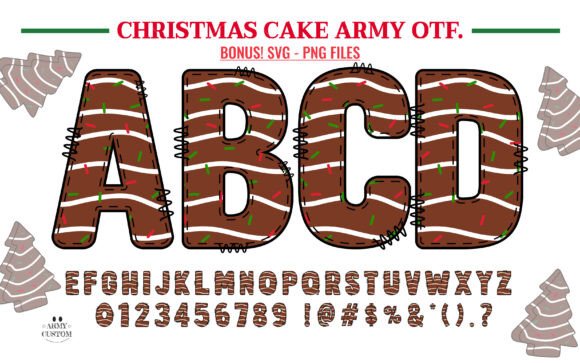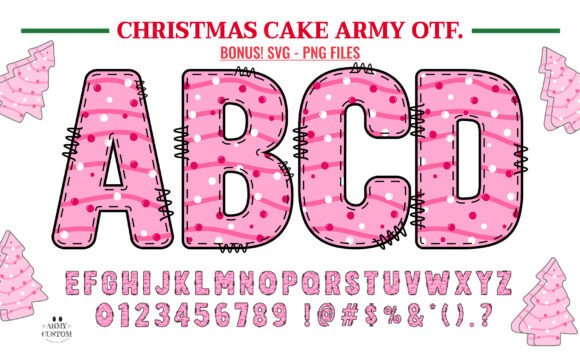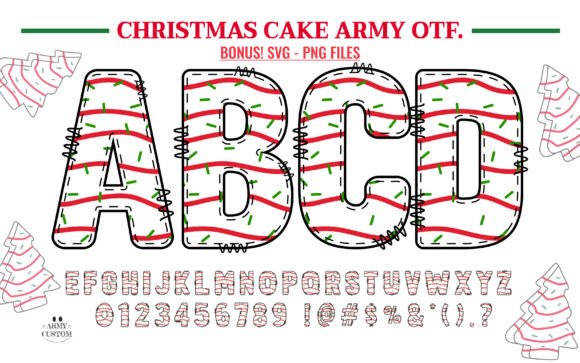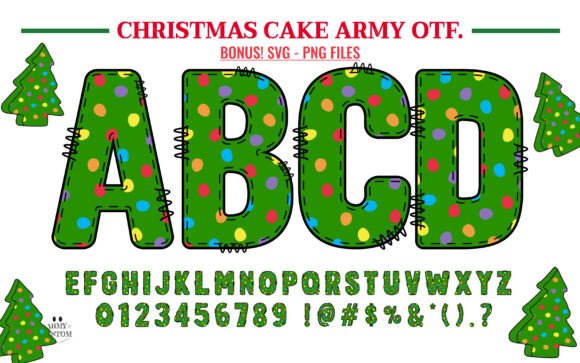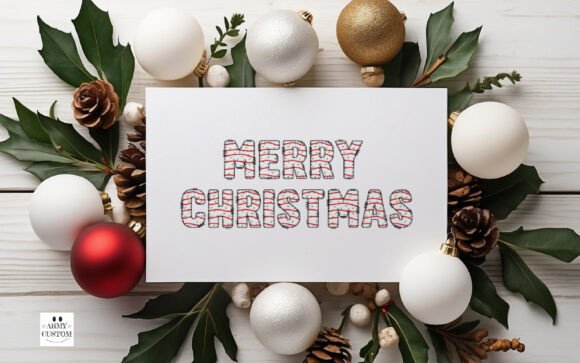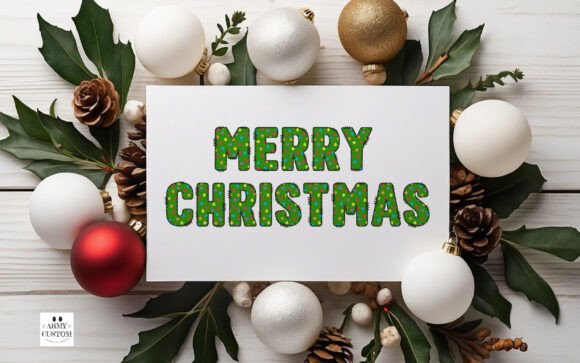
Deck the Halls with Typography: Introducing the Christmas Cake Font Bundle
It’s the most wonderful time of the year, and you’re in the midst of brainstorming the perfect design for your holiday projects. The twinkling lights, the cozy atmosphere, and the festive cheer are all coming together, but something’s missing – a dash of typographic magic. That’s where the Christmas Cake Army Bundle Font comes in, adding an exciting splash of color to your design palette and capturing the festive spirit in every keystroke.
With its immaculately crafted, distinctive decorative font, the Christmas Cake Font Bundle is a vibrant display of typographic excellence, turning texts into visually appealing works of art. As a designer, you’ll appreciate the value this font brings to your projects, elevating them to new heights and making them truly special. Whether you’re working on a holiday card, a gift tag, or a festive social media post, the Christmas Cake Army Bundle Font is sure to be a game-changer.
Christmas Cake Army Bundle Font Features
• Size: The font family includes 3 font weights: Light, Regular, and Bold, with each weight available in 6 different font styles
• Unique Characteristics: The font features a unique blend of traditional and modern design elements, with intricate details and ornaments reminiscent of vintage Christmas decorations
• Character Set: The font includes a wide range of characters, including uppercase and lowercase letters, numbers, punctuation marks, and special characters
Designer Review: Christmas Cake Army Bundle Font
Overall, I was excited to dive into the Christmas Cake Army Bundle Font, but my experience was a mixed bag.
• The font’s quirky, whimsical feel is perfect for adding a touch of holiday magic to your designs.
• The bundle includes a variety of fonts, from bold and playful to delicate and elegant, offering a lot of flexibility.
• The font’s unique, hand-drawn style is well-suited for projects that require a personal, human touch.
• The font’s design is not particularly consistent across the different weights and styles, which can make it harder to use in certain situations.
• The font’s kerning and spacing can be a bit off in some cases, which can affect readability.
• The bundle is not particularly large, which may not be ideal for designers who need a wide range of fonts for their projects.
While the Christmas Cake Army Bundle Font has some great qualities, it ultimately falls short in terms of consistency and versatility. If you’re looking for a unique, holiday-themed font, it might be worth checking out – but if you need a more comprehensive font bundle, you may want to look elsewhere.
The Christmas Cake Army Bundle Font is perfect for creating festive designs for Christmas cards, gift tags, and holiday decorations. You can also use it to add a touch of whimsy to your branding and marketing materials.
What is the character set included in the Christmas Cake Army Bundle Font?
The Christmas Cake Army Bundle Font includes a comprehensive character set, including uppercase and lowercase letters, numbers, punctuation marks, and special characters. The font also supports multiple languages, including English, Spanish, French, and German.